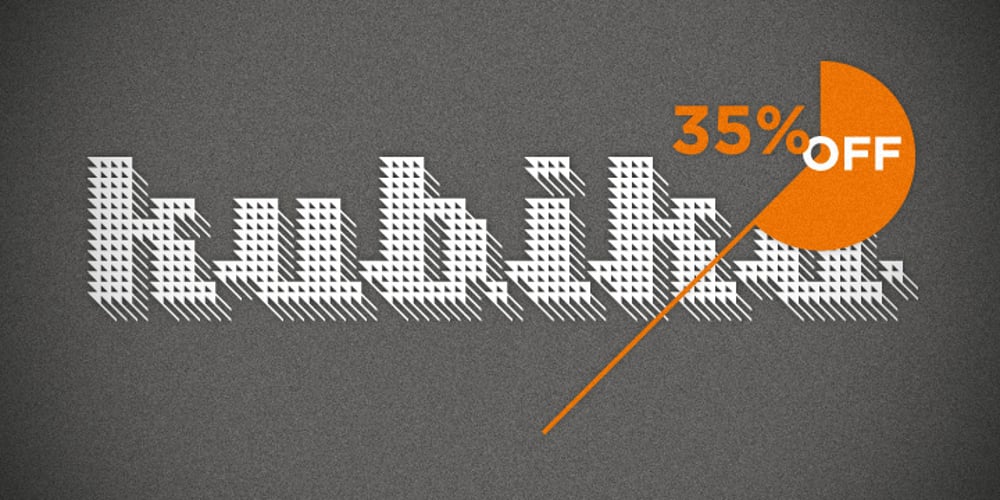
sh klicker
sh klicker font
sh klicker Font Family was designed by Steffen Heidemann and published by shType. sh klicker contains 8 styles and family package options. sh klicker is the first release by shType. Inspired by and built upon the metrical skeleton of pixel based typefaces, sh klicker opens up a whole new way in perceiving the classic impression of static grids. sh klicker is a modular, pixel based, graphically rich shapeshifter in eight different weights, best suited as a display font or where it is possible to use larger type sizes. Comes in Latin, Greek and Cyrillic with additional characters for most European languages.